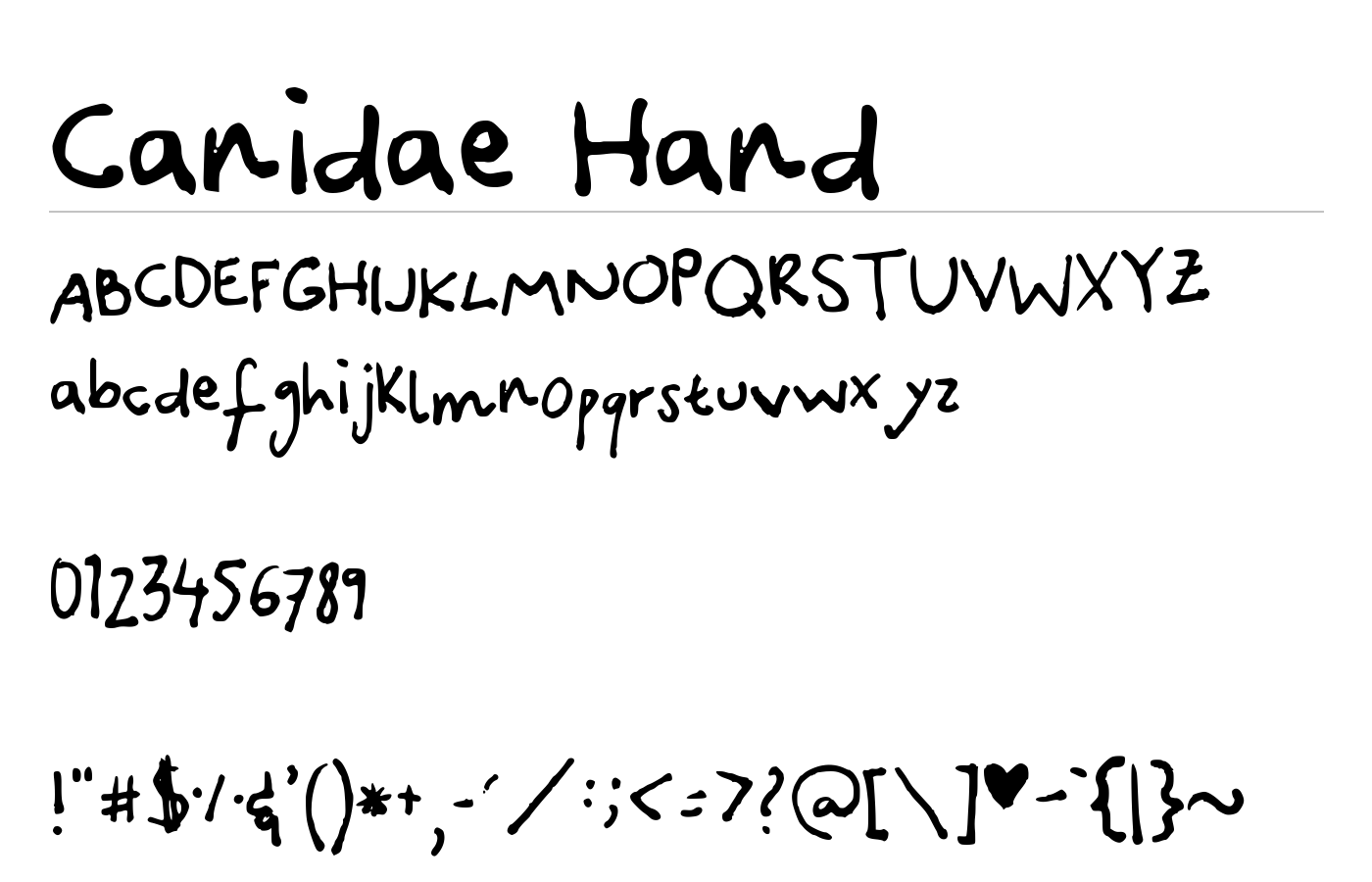
Canidae Hand is a playful and casual handwritten font featuring irregular, slightly bouncy letterforms with varying stroke widths that give it a charming, personal touch. Its informal style makes it perfect for friendly branding, children's materials, and creative projects that want to convey warmth and approachability. This font works well in headlines and logos where a relaxed, human feel is desired.
Canidae Hand Font
About Canidae Hand Font